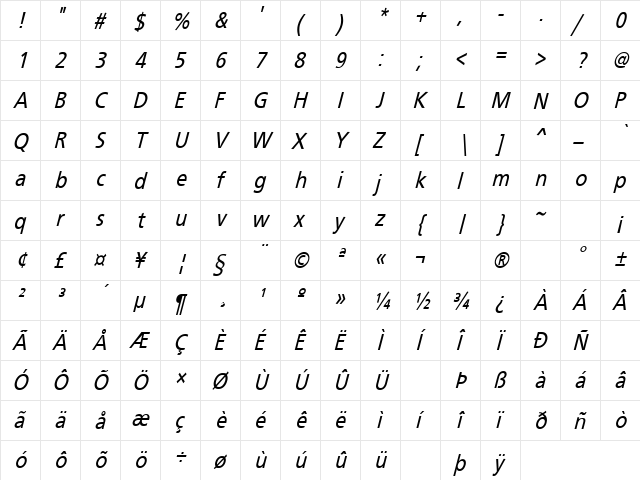
Four Sticks 12 Regular
Design Context for Four Sticks 12 Typeface
Four Sticks 12 is a composed and adaptable typeface that performs quietly and consistently across a wide range of design contexts.